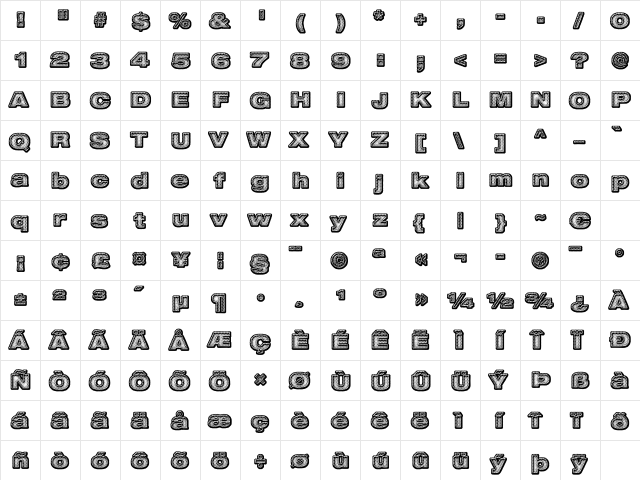
HopScotch 'Denim' Regular
Design Context for HopScotch 'Denim' Typeface
HopScotch 'Denim' is a composed and adaptable typeface that performs quietly and consistently across a wide range of design contexts.